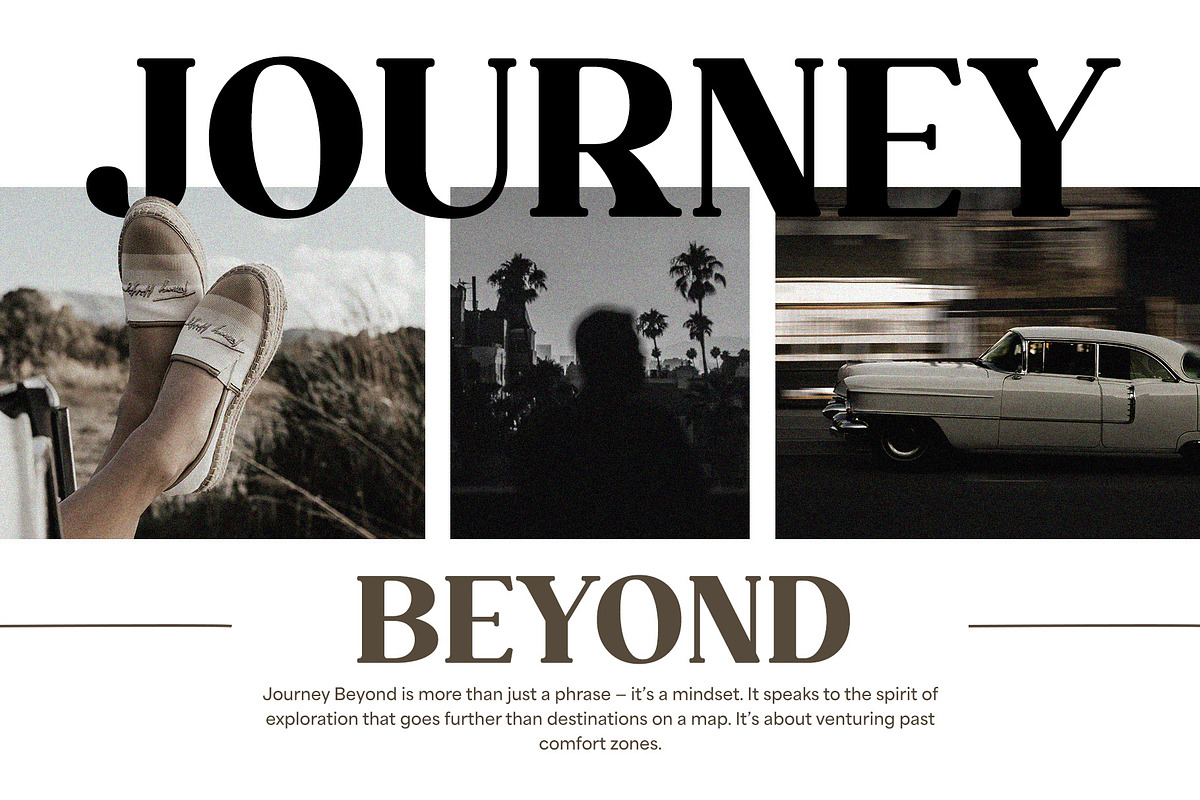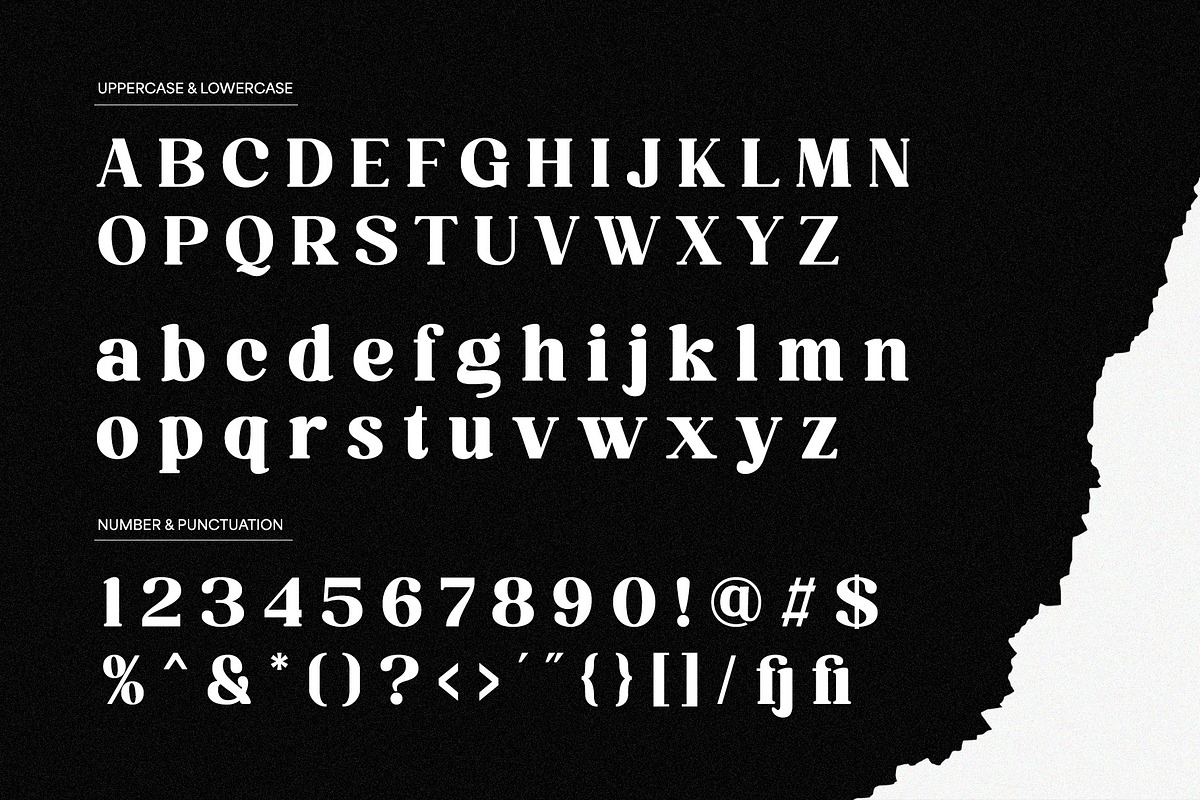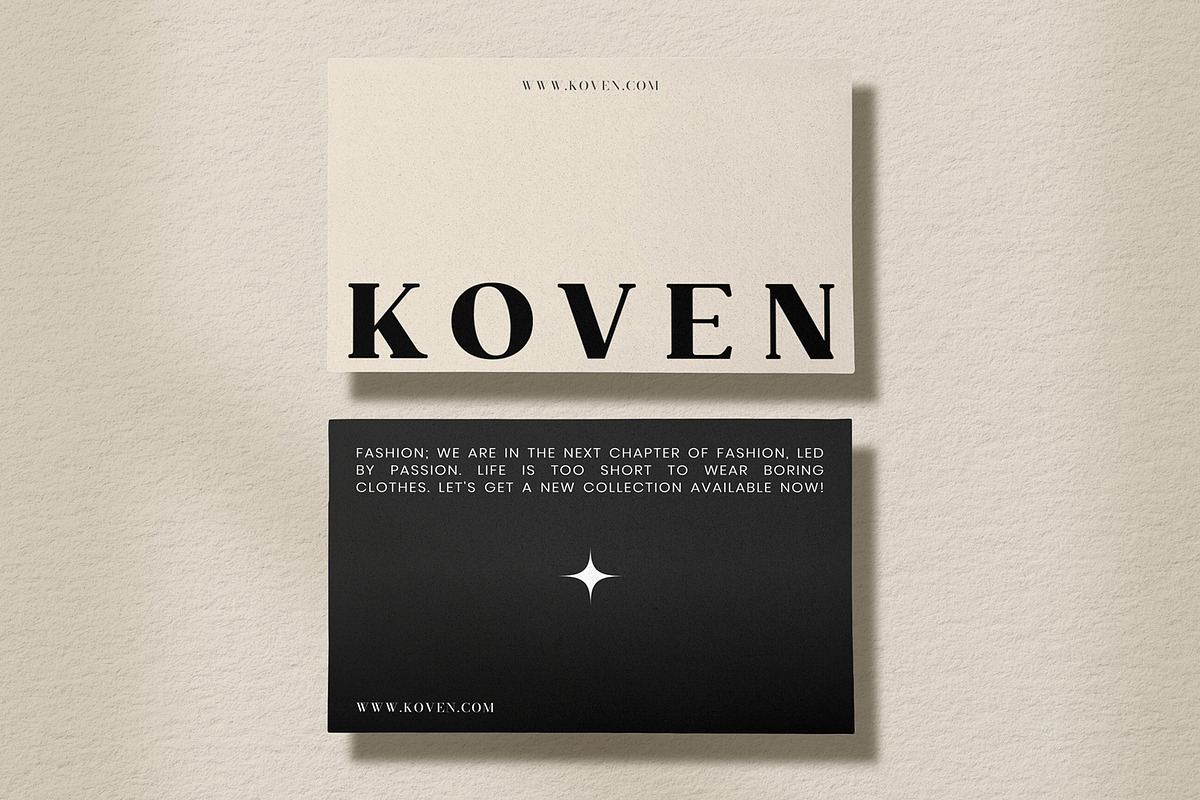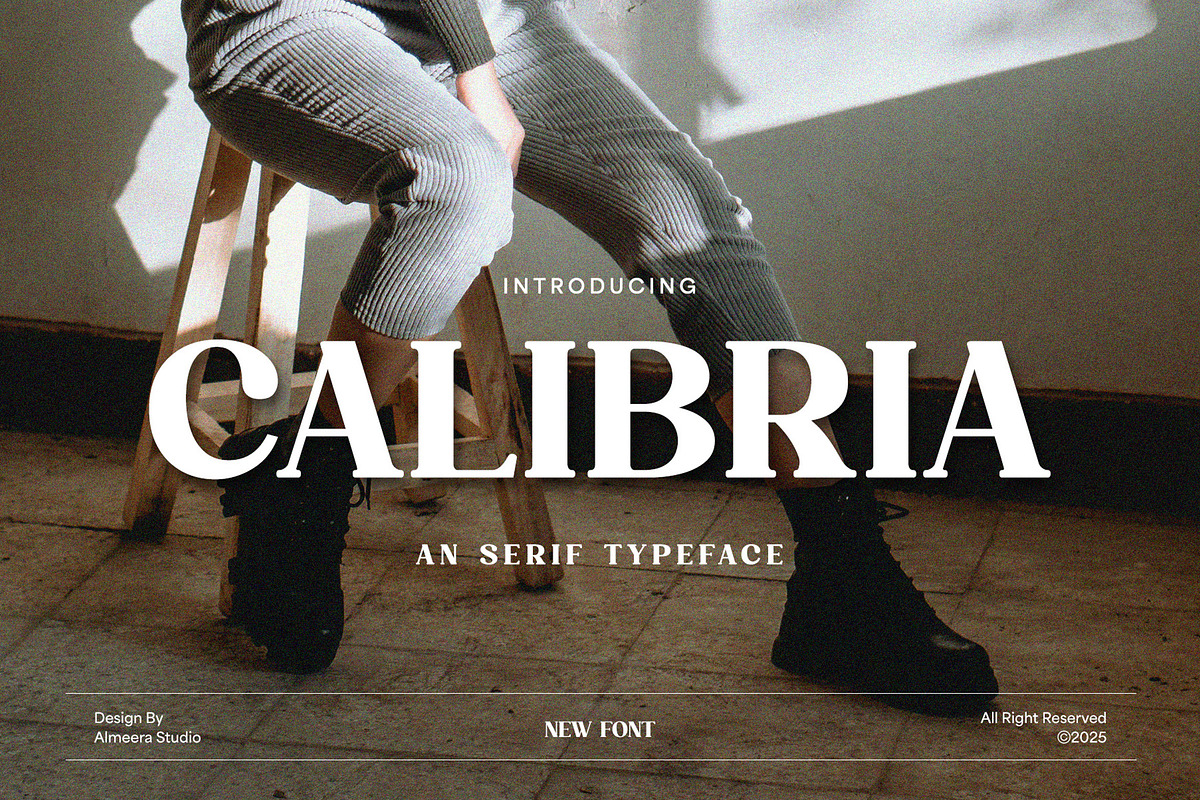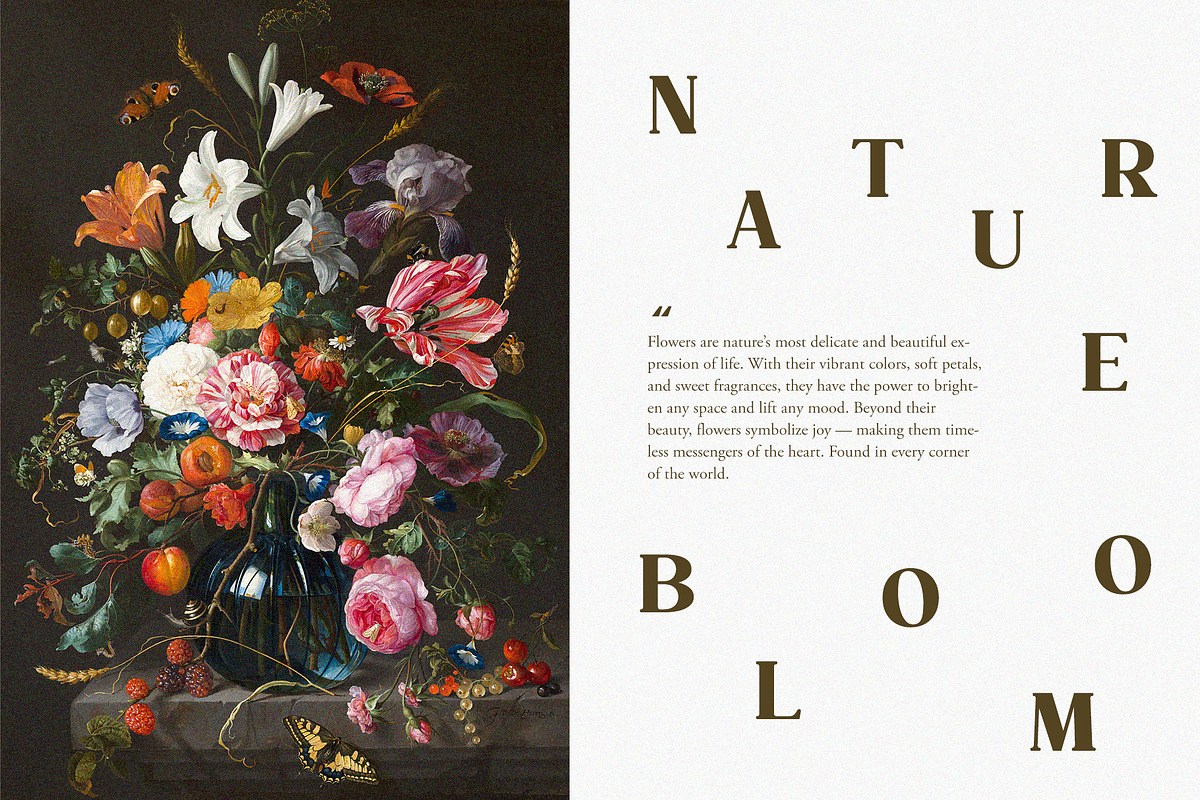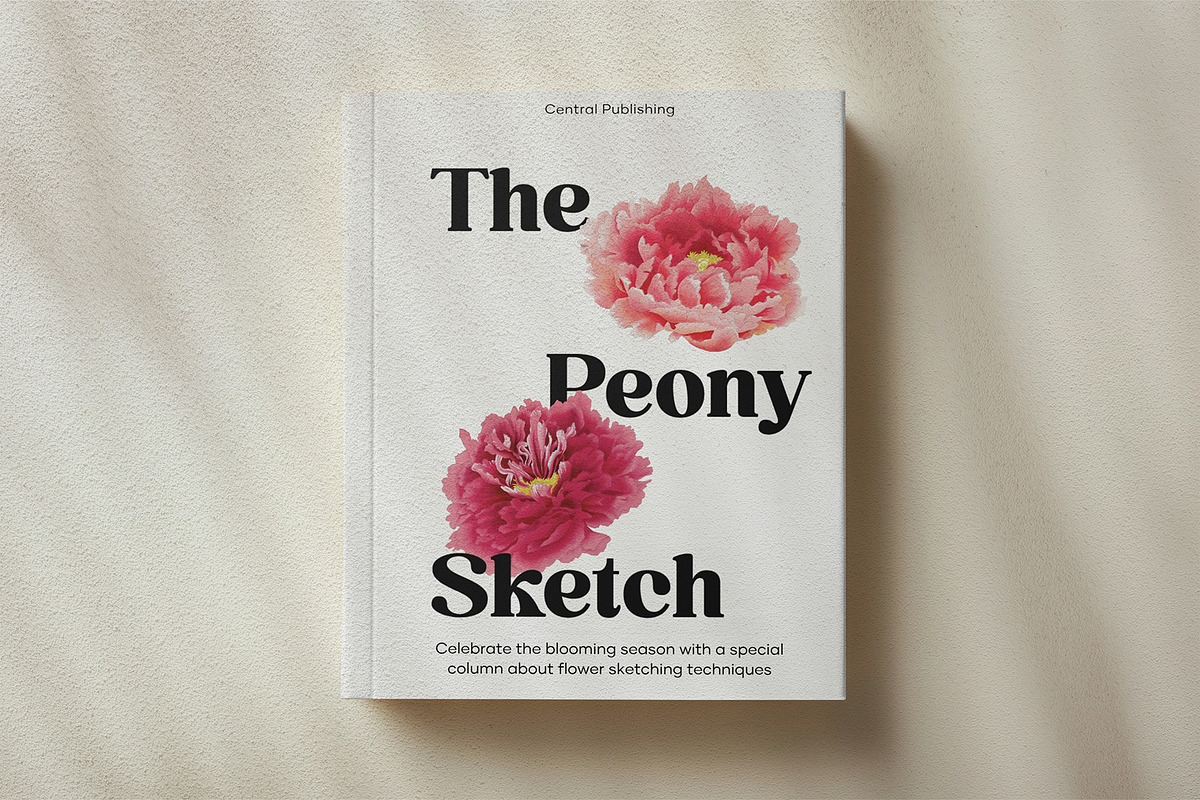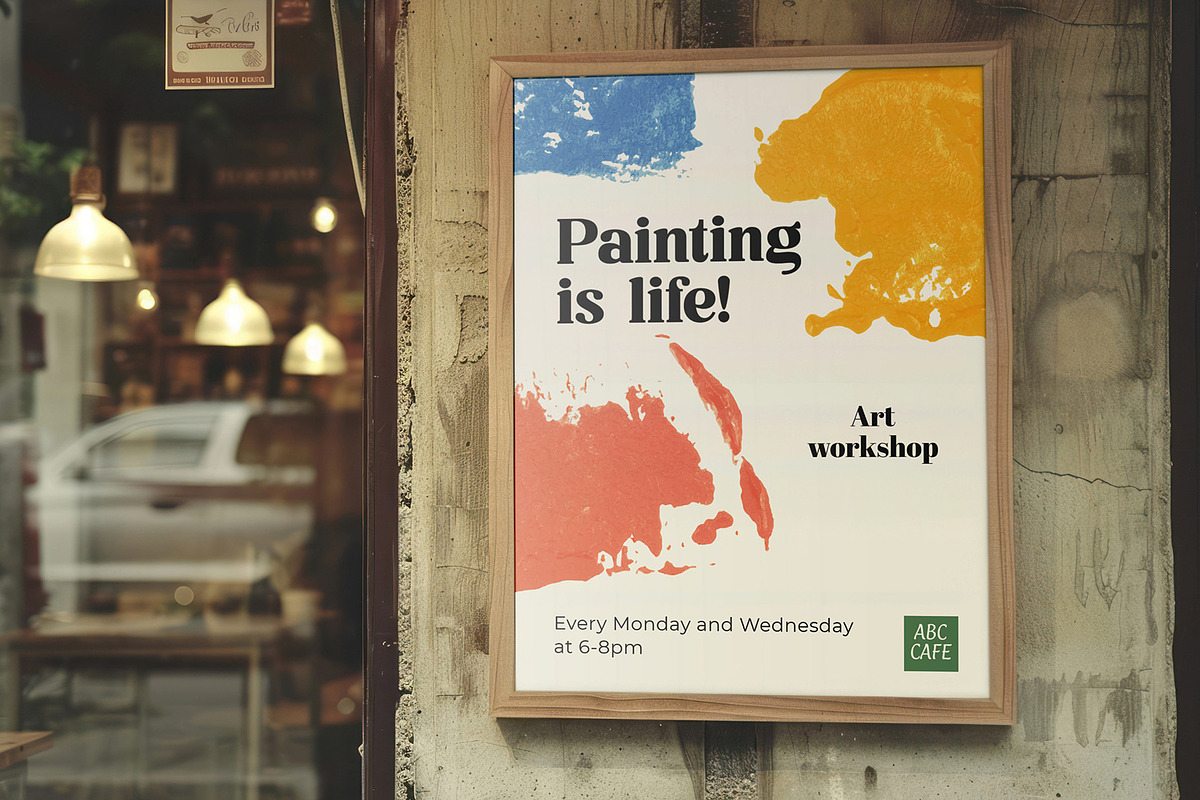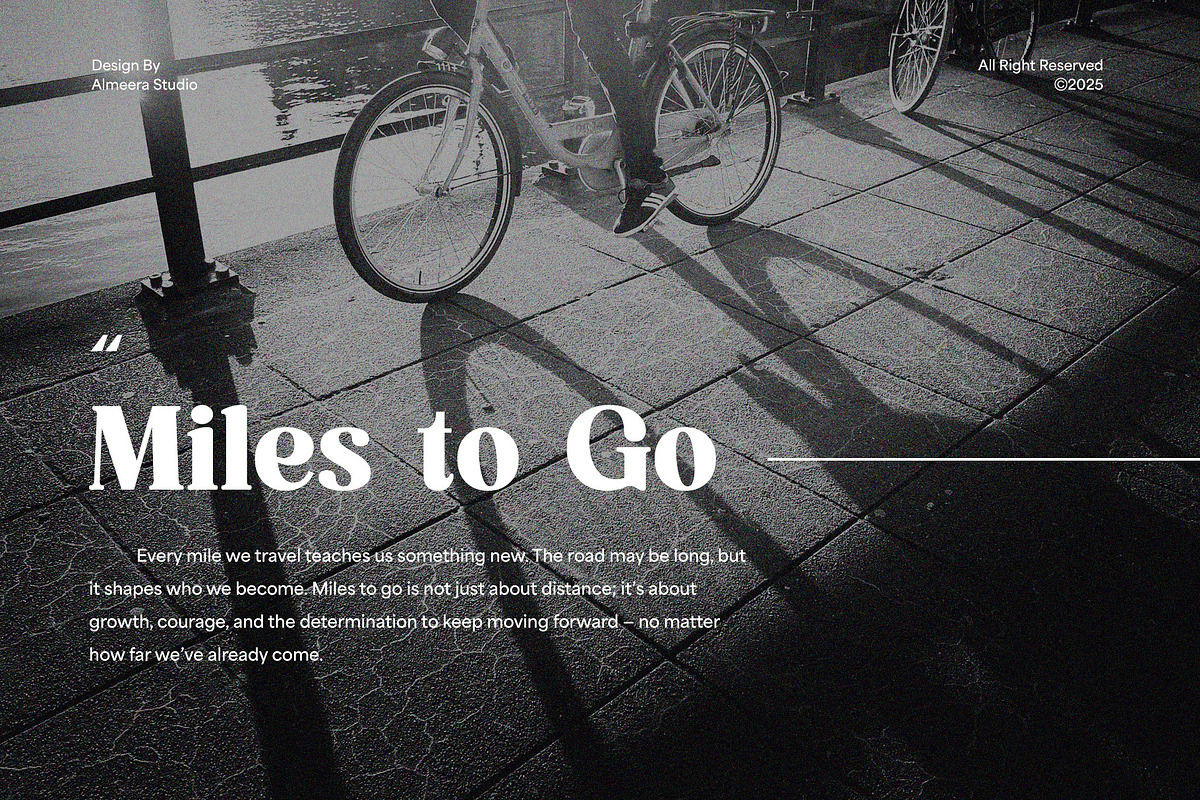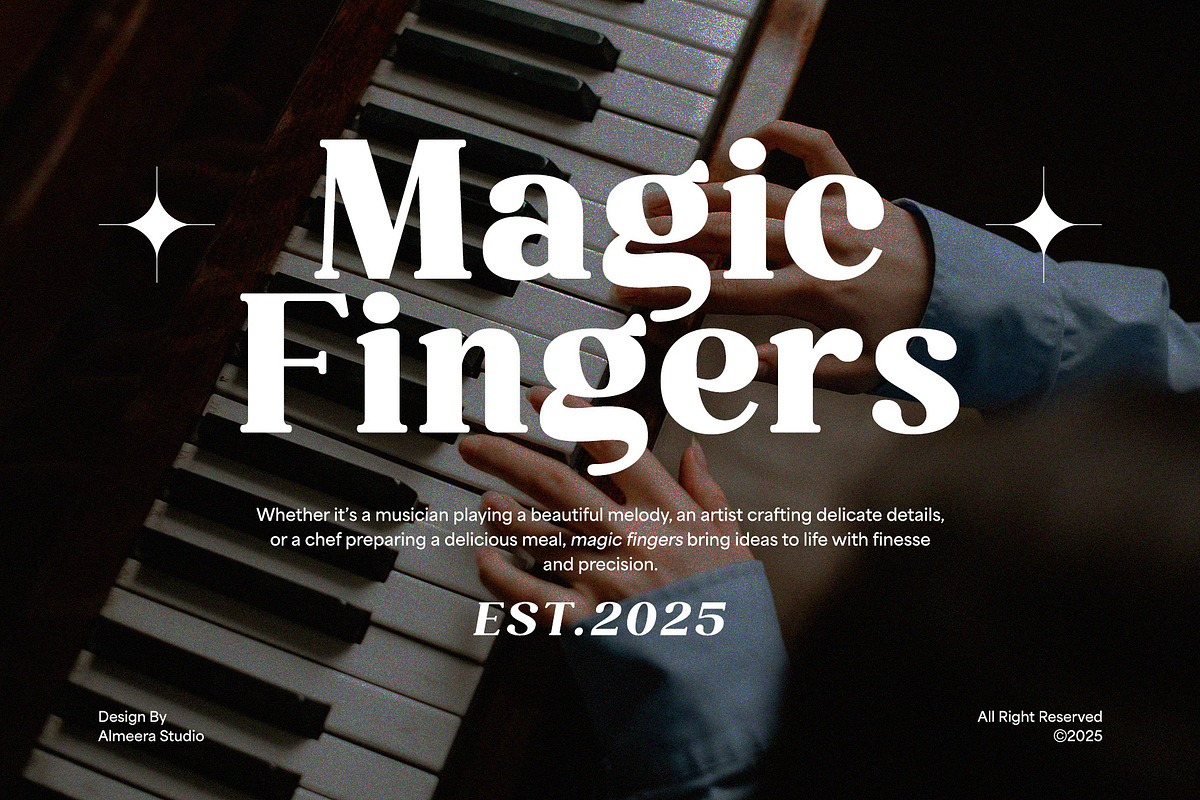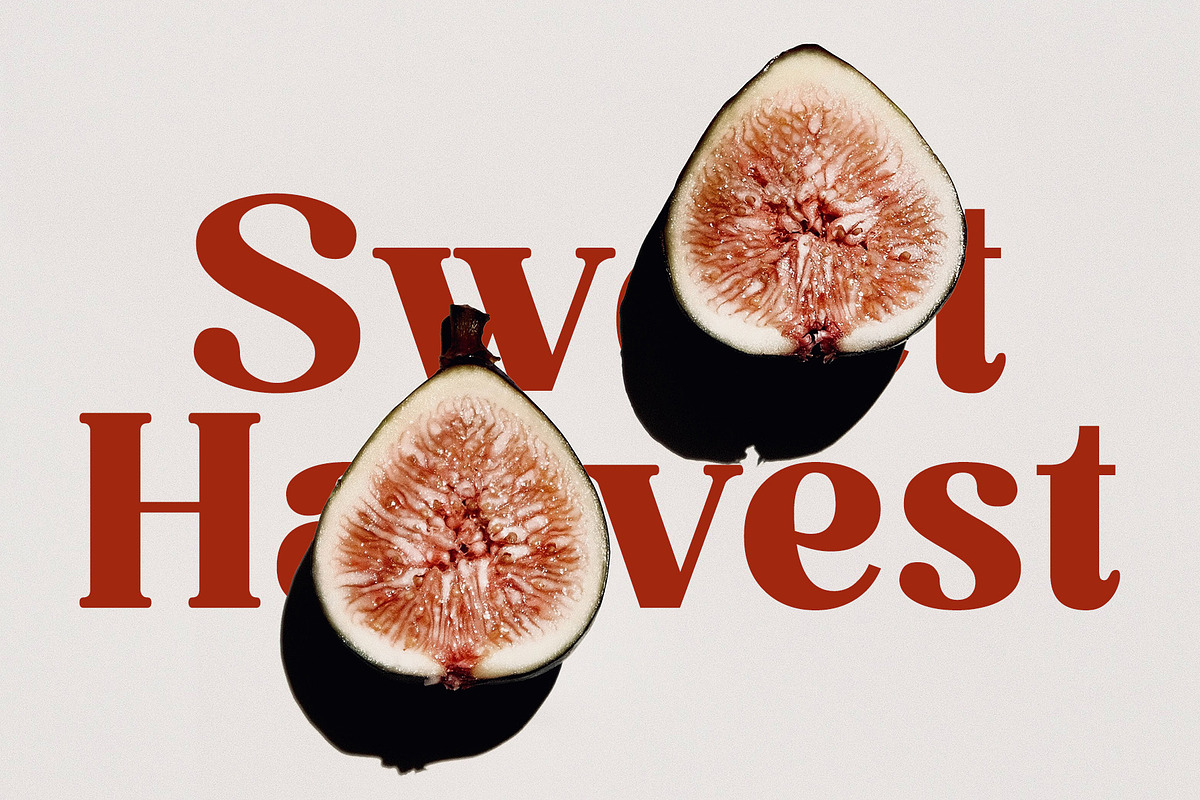
Calibria – Bold & Elegant Serif
Calibria is a bold serif font designed to bring a confident, modern touch to your creative projects. With high contrast strokes and a strong presence, Calibria is perfect for editorial headlines, fashion branding, posters, and sophisticated packaging. Its classic elegance is matched with a contemporary edge, making it ideal for designs that demand both strength and style. Embrace timeless typography with a bold twist through Calibria.